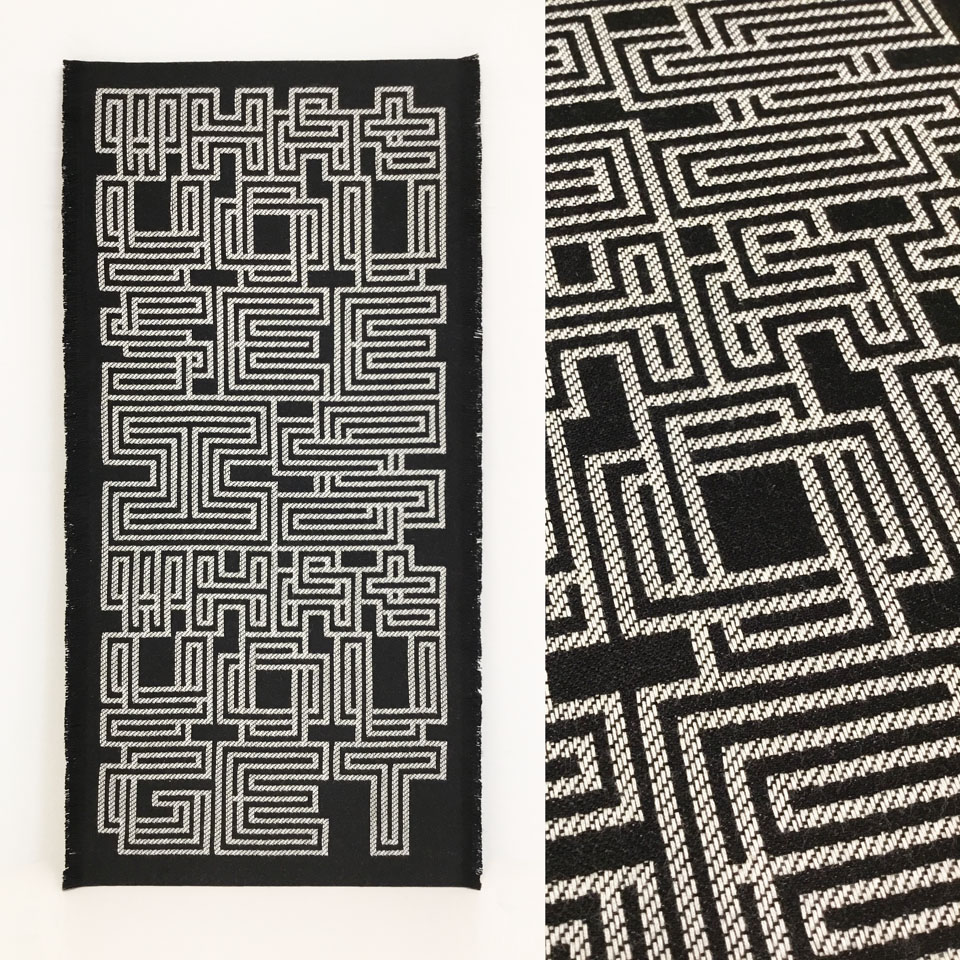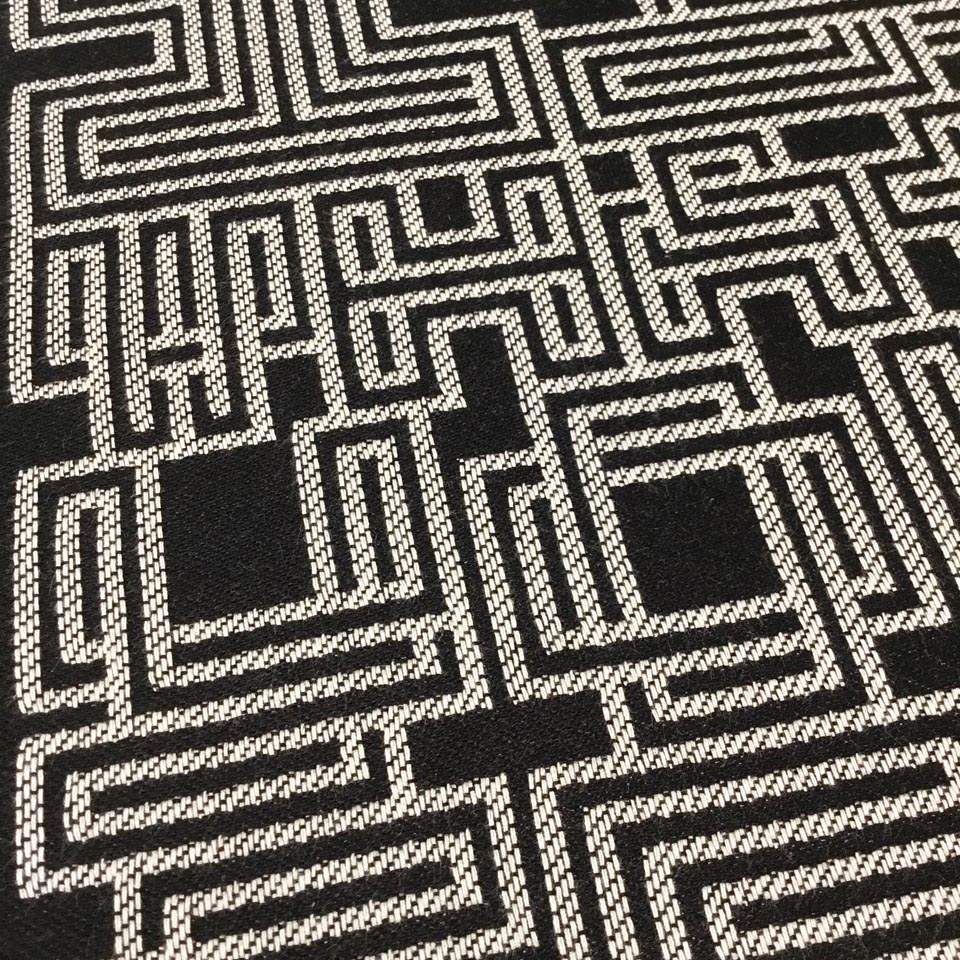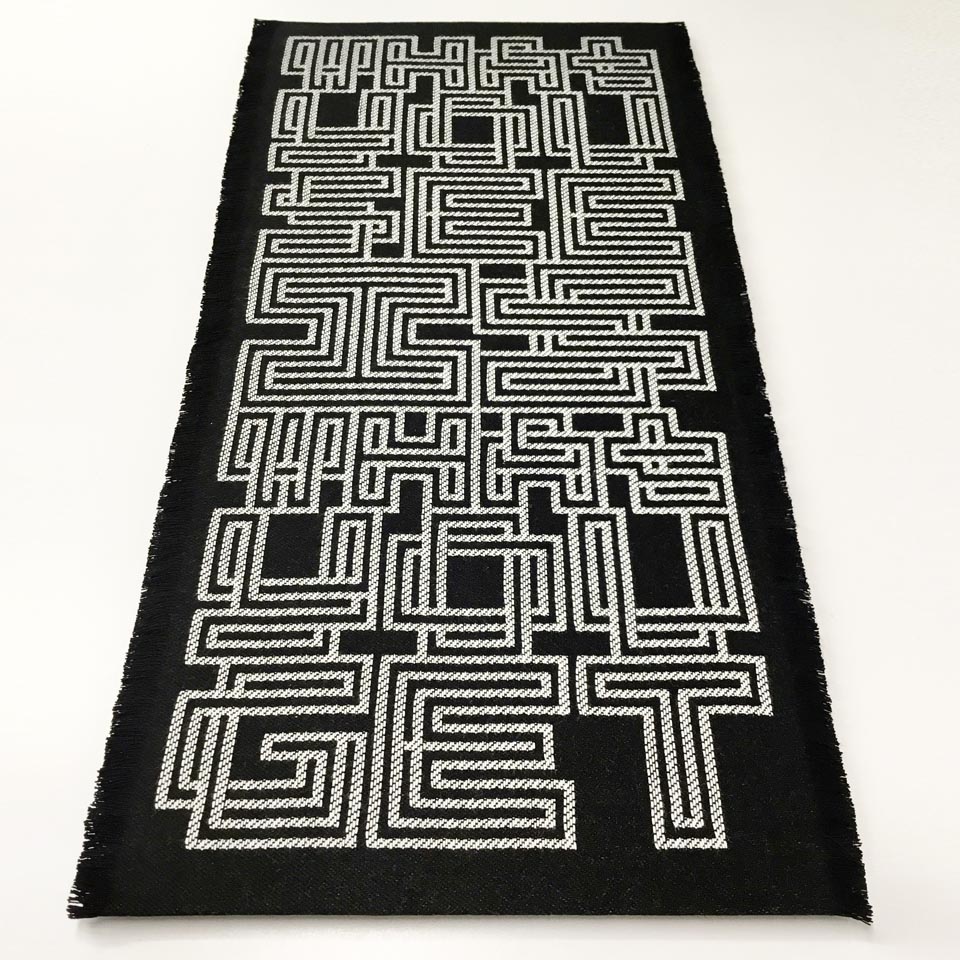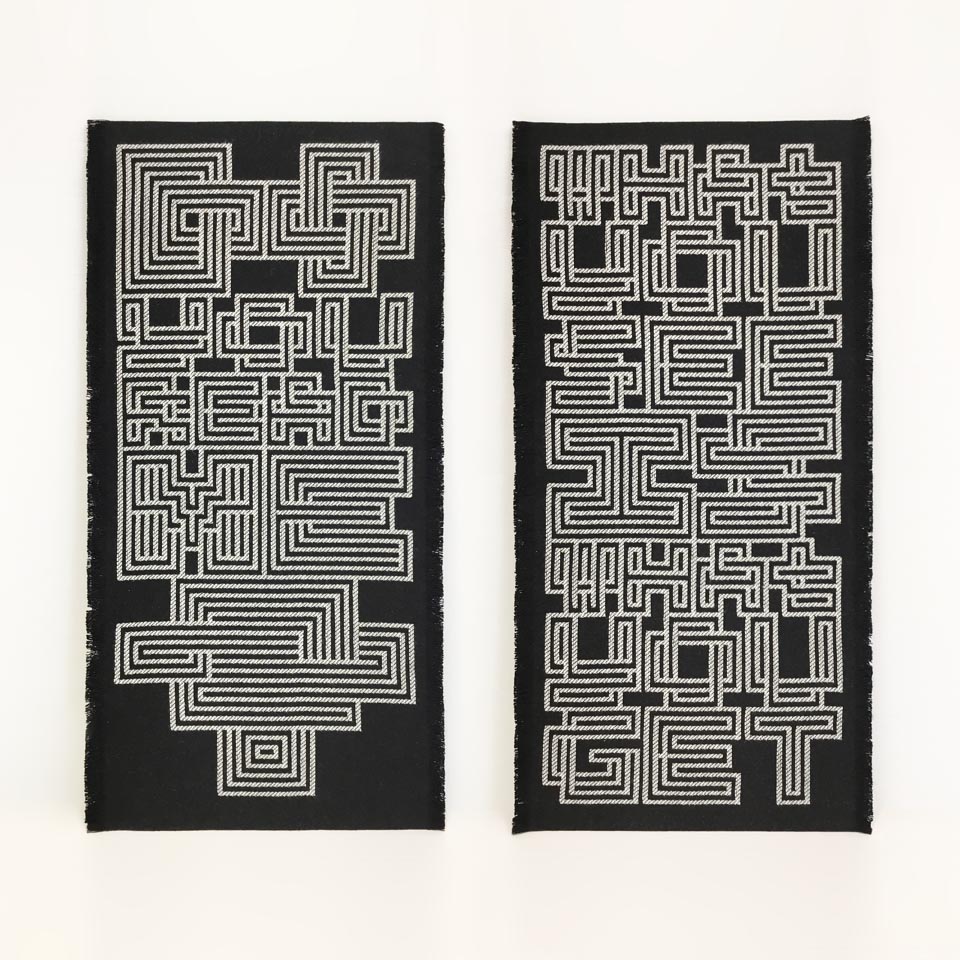
“WHAT YOU SEE IS WHAT YOU GET” Wall Hanging
"WHAT YOU SEE IS WHAT YOU GET" lettering, composed from lines and outlines that intertwine. Woven on a jacquard loom.
Mounted for wall hanging, with fringe detail revealed at two side edges.